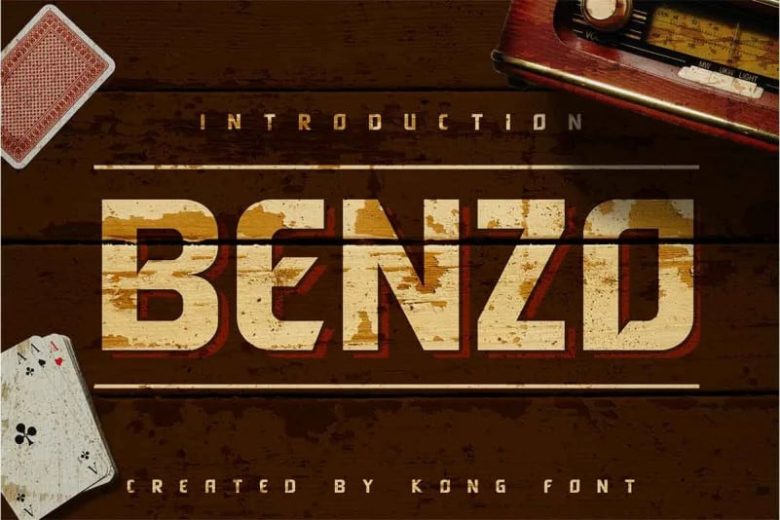
Benzo Display Font
ay hello to Benzo Display Font is handcrafted vintage display typeface. This font is ideal for branding and decorate your any project.
This typeface is designed and shared by fontkong. Benzo is an elegant serif font, carefully handcrafted to become a true favorite. This font is the perfect fit for all of your logos, branding, social media, and crafty DIY projects.